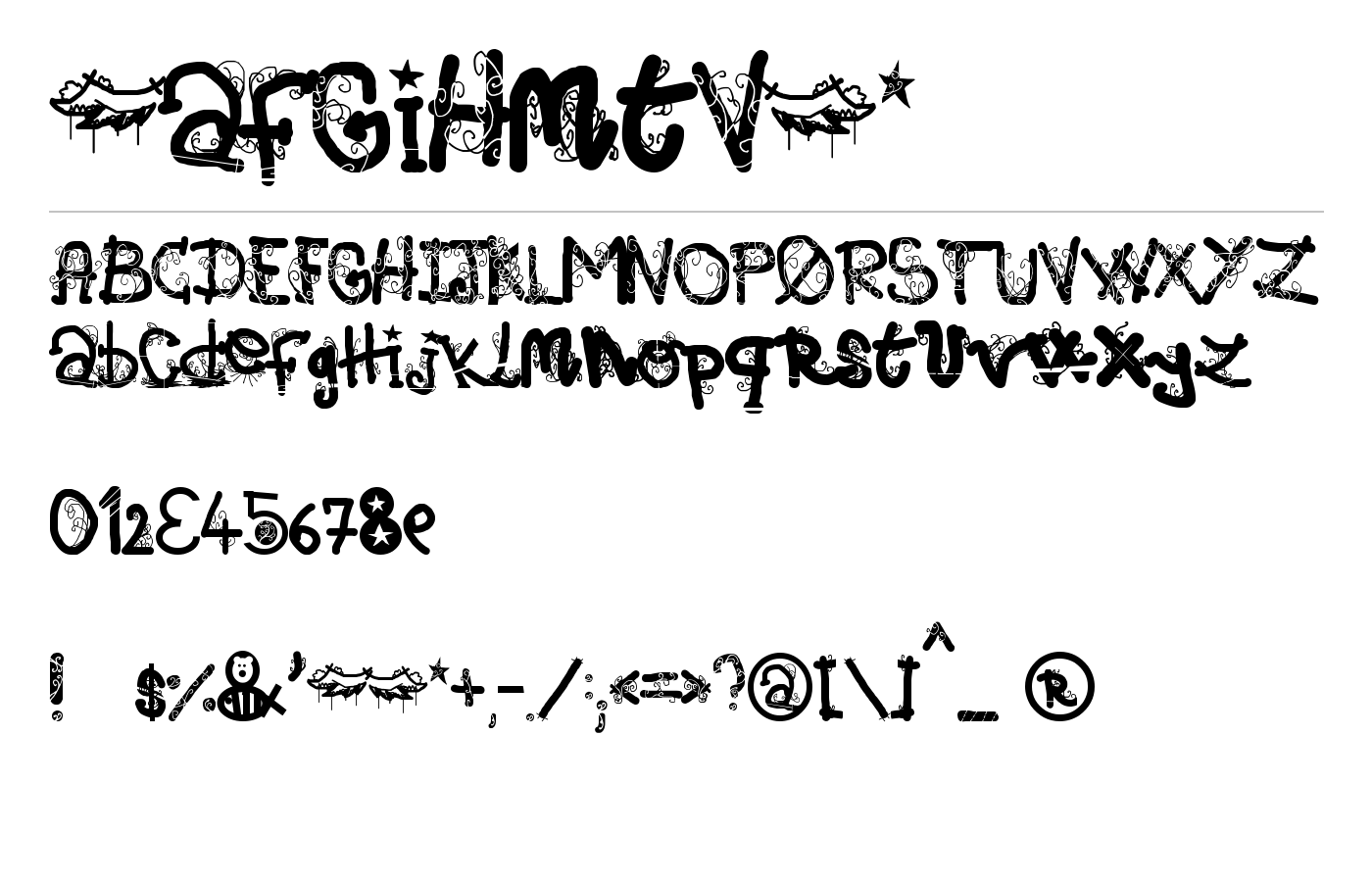
(afGiHmtV)* Font is a playful and quirky display typeface with an artistic, almost graffiti-like style featuring decorative swirls and star accents. Its bold, irregular forms and whimsical details make it perfect for creative projects seeking a fun, unconventional vibe, especially in posters, children’s materials, or artistic branding where a lively and eye-catching look is desired. This font brings a lively, youthful energy that stands out with its unique character shapes and spirited personality.
(afGiHmtV)* Font
About (afGiHmtV)* Font